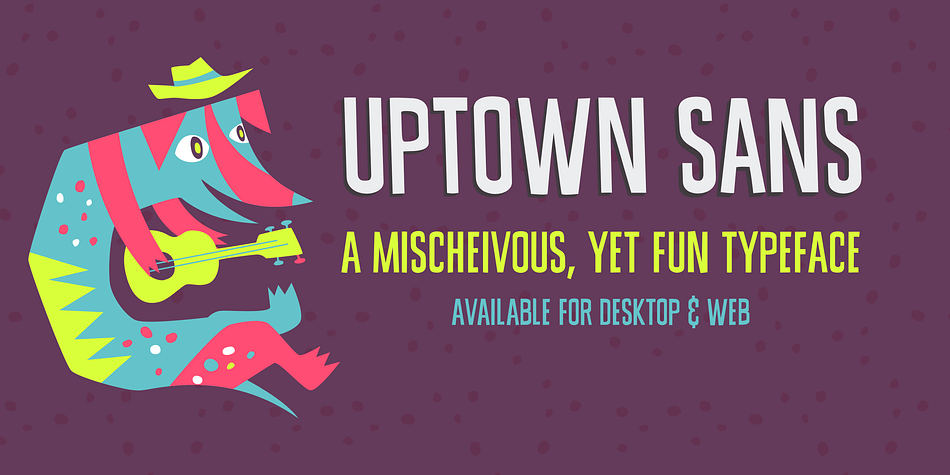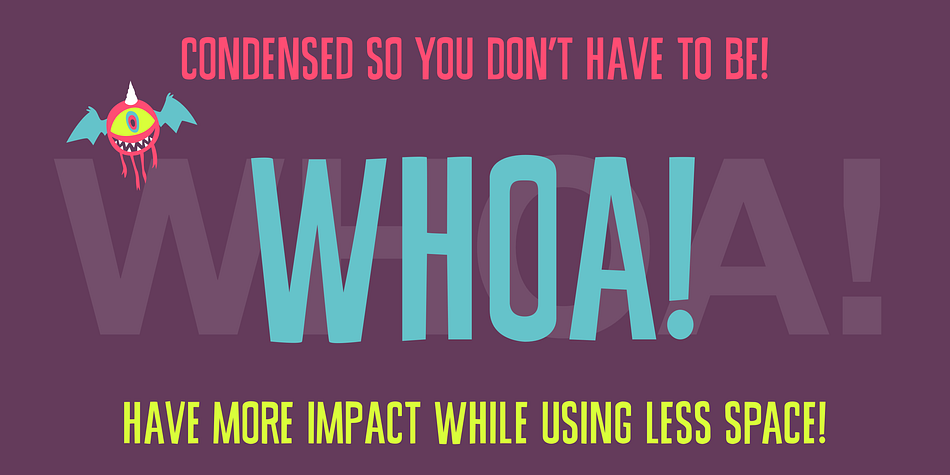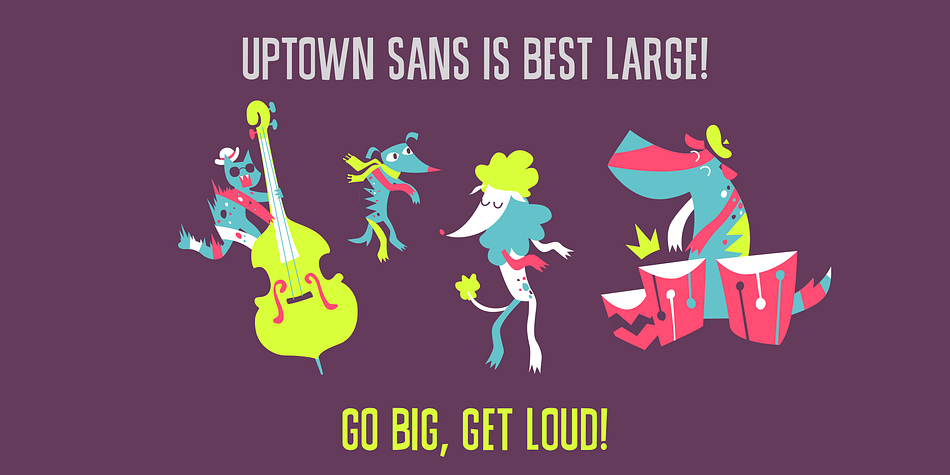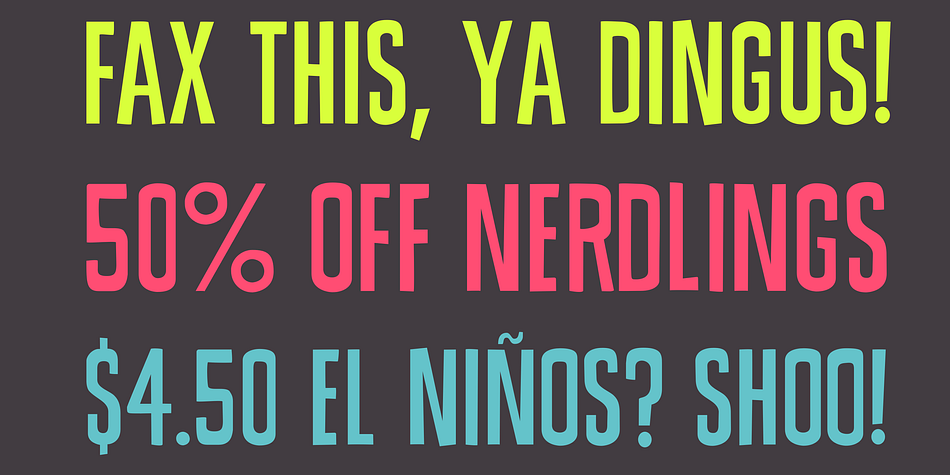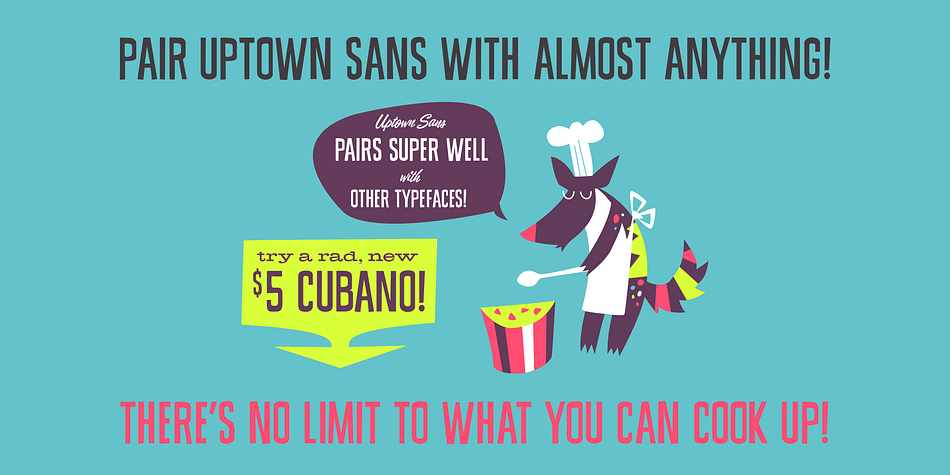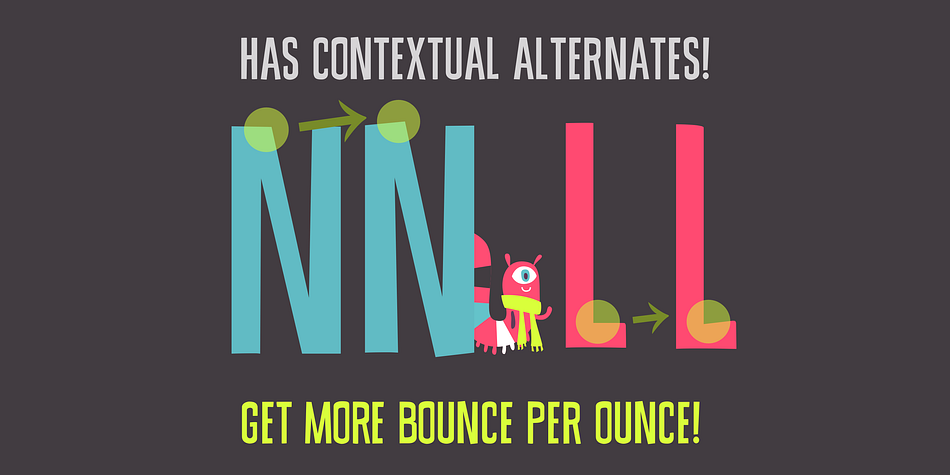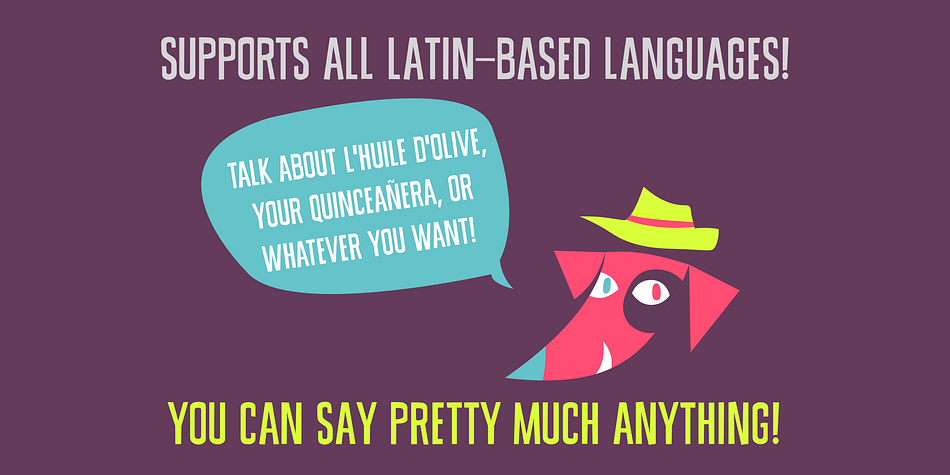
Designed by Joshua Mauldin, Uptown Sans is a display sans font published by Joshua Mauldin.
About Uptown Sans
What if Jim Flora (a record cover designer from the 50s), Saul Bass, and Eric Carle got together for tacos and made a typeface? That’s the vibe of Uptown Sans. It’s a little weird, a little loud, and full of energy. It’s sure to help you express yourself in just the right way.
Cool, so what’s it good for?
Uptown Sans is best used large. It also comes with alternate characters, so you’re sure to get more bounce per ounce. It also supports all Latin-based languages.
Some suggested uses:
* Using it in a keynote presentation
* Giving large headlines personality
* Helping you realize Helvetica can be boring, and that life is short, also that you should have fun
* Plastering it on your new food truck
How about that name?
Uptown Sans gets its name from the city of Charlotte, a beautiful place that’s got some of the absolute best people. It may also funk you up, to borrow a turn of phrase from a pretty fun song.